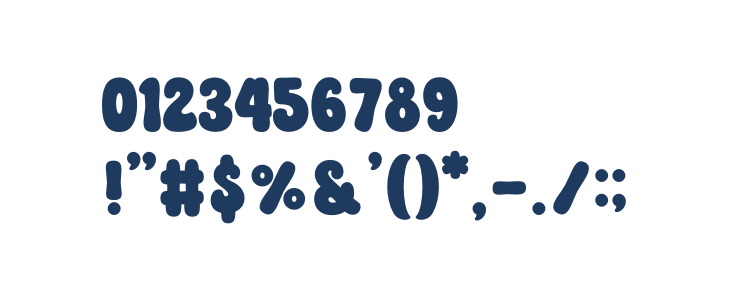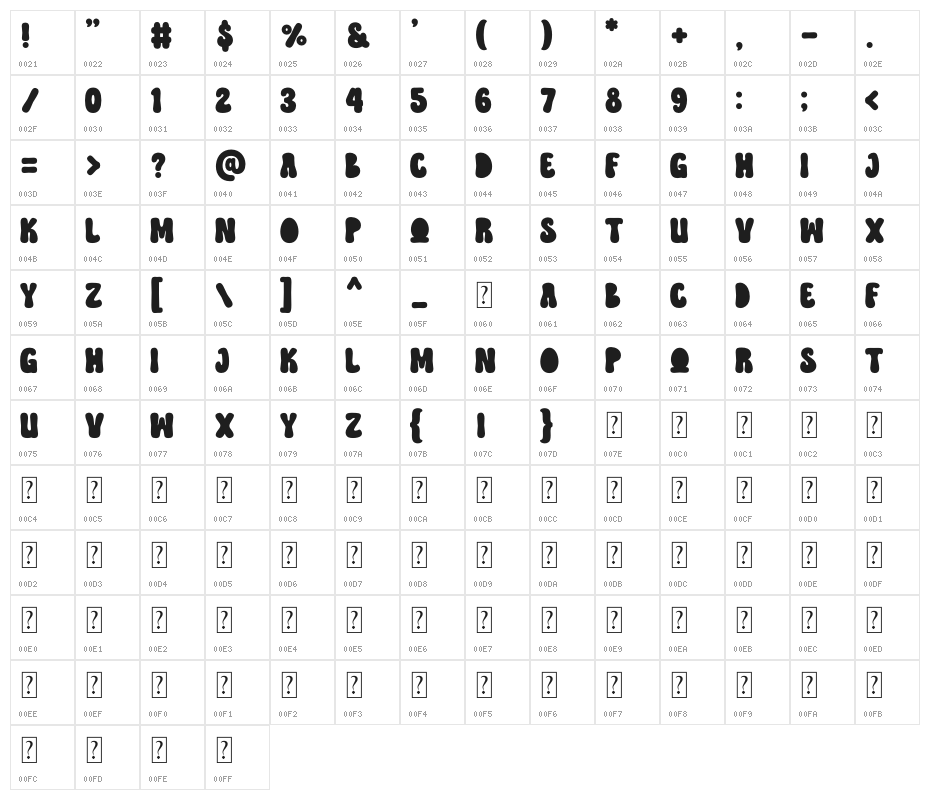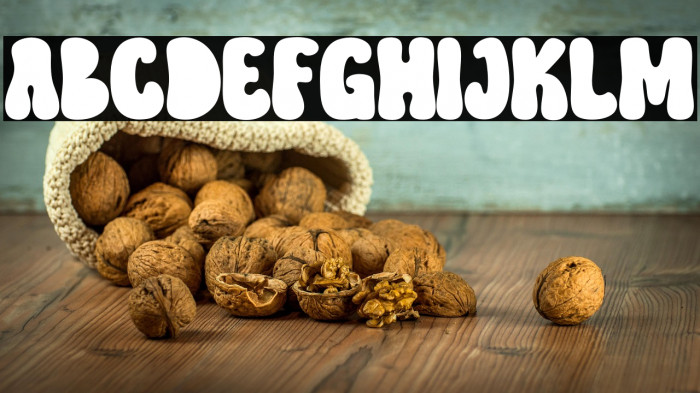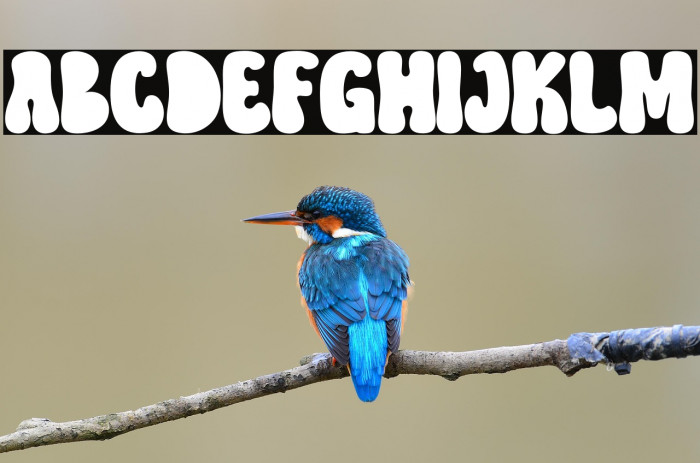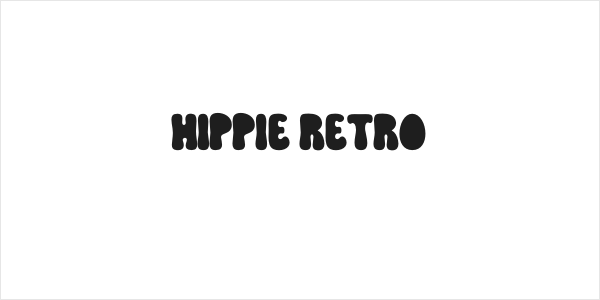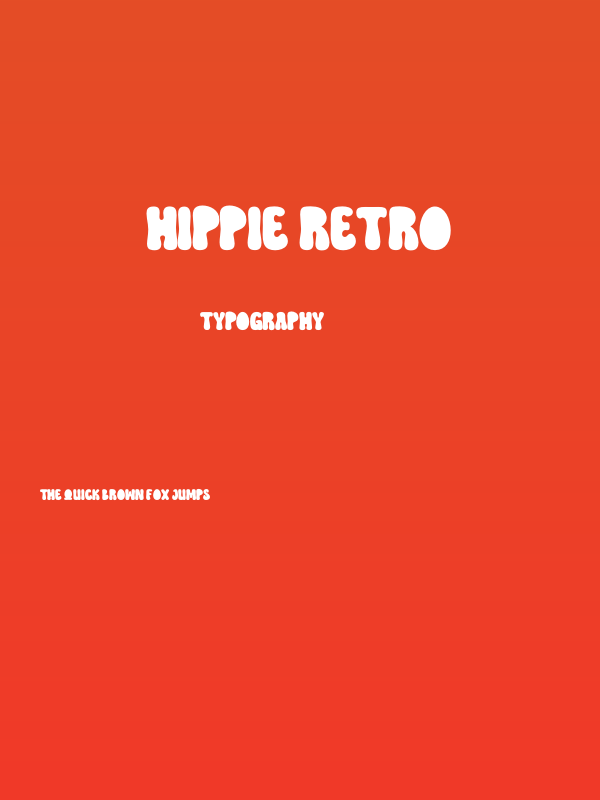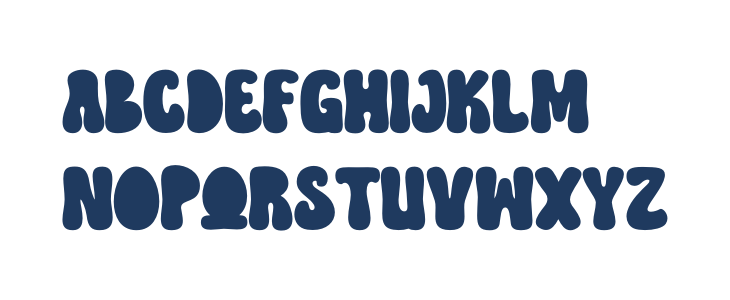
Hippie Retro Font
Hippie Retro Description
This font exudes a playful and retro vibe, characterized by its bold, rounded, and bubbly letterforms. Each character features a thick, uniform stroke that creates a sense of fullness and weight, reminiscent of 1960s and 70s design aesthetics. The letters are tightly spaced, enhancing the cohesive and compact appearance. The font's style is distinctly decorative, making it ideal for capturing attention and conveying a sense of fun and nostalgia. Its unique and quirky design elements make it stand out, perfect for projects that aim to evoke a sense of whimsy and creativity.
| Proposed Projects | Ideal for posters, album covers, retro-themed events, and playful branding. |